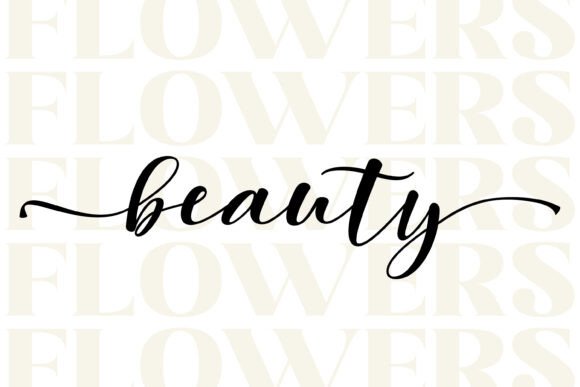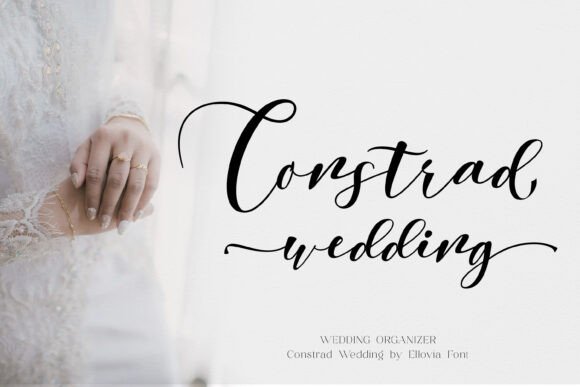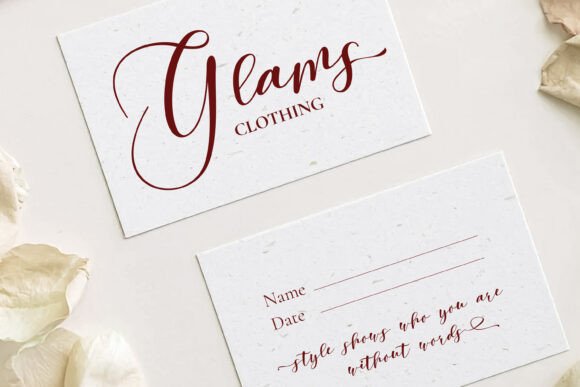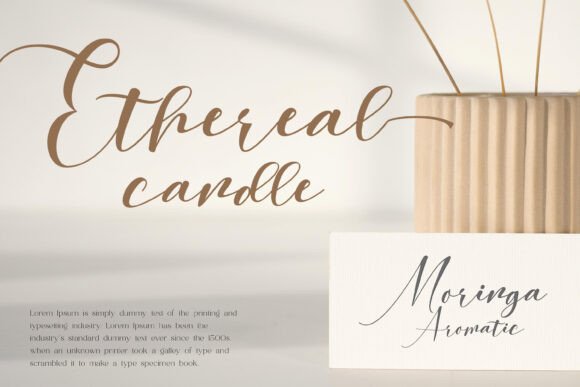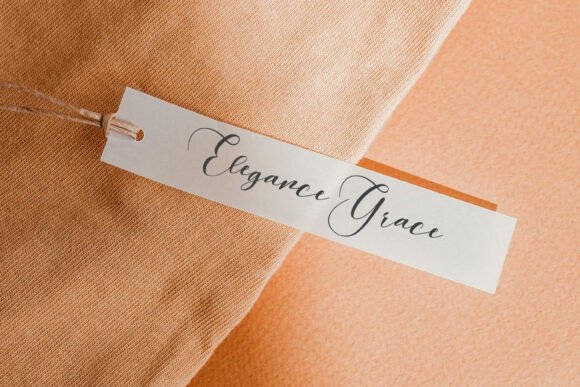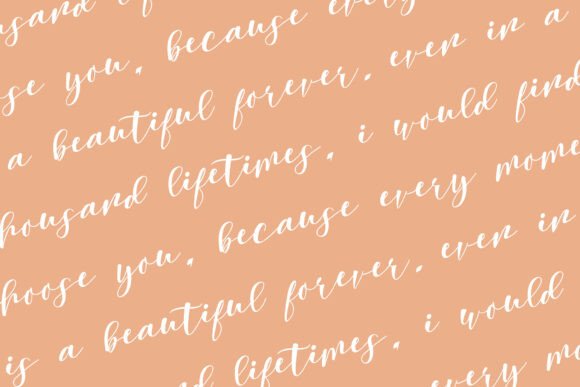
Introducing Ellovia: The Ultimate Stylish Script Font for Every Occasion
Are you on the hunt for a script font that embodies elegance, modern flair, and versatility? Look no further than Ellovia, a stunning hand-lettered font designed to elevate your creative projects. Whether you’re crafting a wedding invitation, designing a product label, or creating a brand logo, Ellovia is the perfect companion to bring your vision to life.
Unleash Your Creativity with Ellovia
Ellovia is more than just a font – it’s a tool to unleash your creativity and add a personal touch to your designs. Its beautiful, flowing script style is perfect for a wide range of applications, from formal events to modern branding. With Ellovia, you can create unique and sophisticated designs that stand out from the crowd.
Endless Possibilities at Your Fingertips
What sets Ellovia apart is its extensive set of alternates and ligatures, giving you the flexibility to customize every design to perfection. With a wide range of options, you can experiment with different looks and styles until you find the one that perfectly captures your vision. Whether you want to create a bold statement or a subtle impression, Ellovia has got you covered.
A Font That’s Truly Alive
Every letter in Ellovia is infused with personality, waiting to transform your work into something truly unique. The font’s organic style is carefully crafted to feel authentic and refined, making it perfect for designers and crafters who value attention to detail. With Ellovia, you can add a touch of sophistication and elegance to your designs, elevating them to the next level.
The Perfect Script Font for Designers and Crafters
If you’ve been searching for a script font that feels authentic but also refined, Ellovia is your answer. Its versatility and flexibility make it an ideal choice for a wide range of projects, from wedding invitations and product labels to brand logos and more. With Ellovia, you can create designs that are both visually stunning and effective in communicating your message.
Bringing Your Designs to Life with Ellovia
Ellovia’s flowing, organic style is brought to life with a generous set of alternates and ligatures that ensure your designs are never limited to a single look. This means you can experiment with different styles and variations, creating a unique visual identity for your brand or project. Whether you’re a seasoned designer or a crafty DIY enthusiast, Ellovia is the perfect tool to help you bring your creative vision to life.
Key Features of Ellovia
- Hand-lettered script font: Ellovia is a beautifully crafted hand-lettered font, adding a personal touch to your designs.
- Versatile and elegant: Perfect for a wide range of applications, from formal events to modern branding.
- Extensive set of alternates and ligatures: Customize every design to perfection with a wide range of options.
- Unique and sophisticated: Add a touch of elegance and refinement to your designs.
- Perfect for designers and crafters: Ideal for a wide range of projects, from wedding invitations and product labels to brand logos and more.
Get Ready to Elevate Your Designs with Ellovia
Whether you’re a seasoned designer or just starting out, Ellovia is the perfect addition to your font collection. With its unique blend of elegance, modern flair, and versatility, Ellovia is sure to become your go-to script font for every occasion. So why wait? Discover the endless possibilities of Ellovia and take your designs to the next level.
In conclusion, Ellovia is a stylish script font that is sure to captivate your audience and elevate your designs. Its beautiful, flowing script style, extensive set of alternates and ligatures, and versatility make it the perfect choice for designers and crafters. With Ellovia, you can unleash your creativity, add a personal touch to your designs, and create unique and sophisticated visual identities that stand out from the crowd.